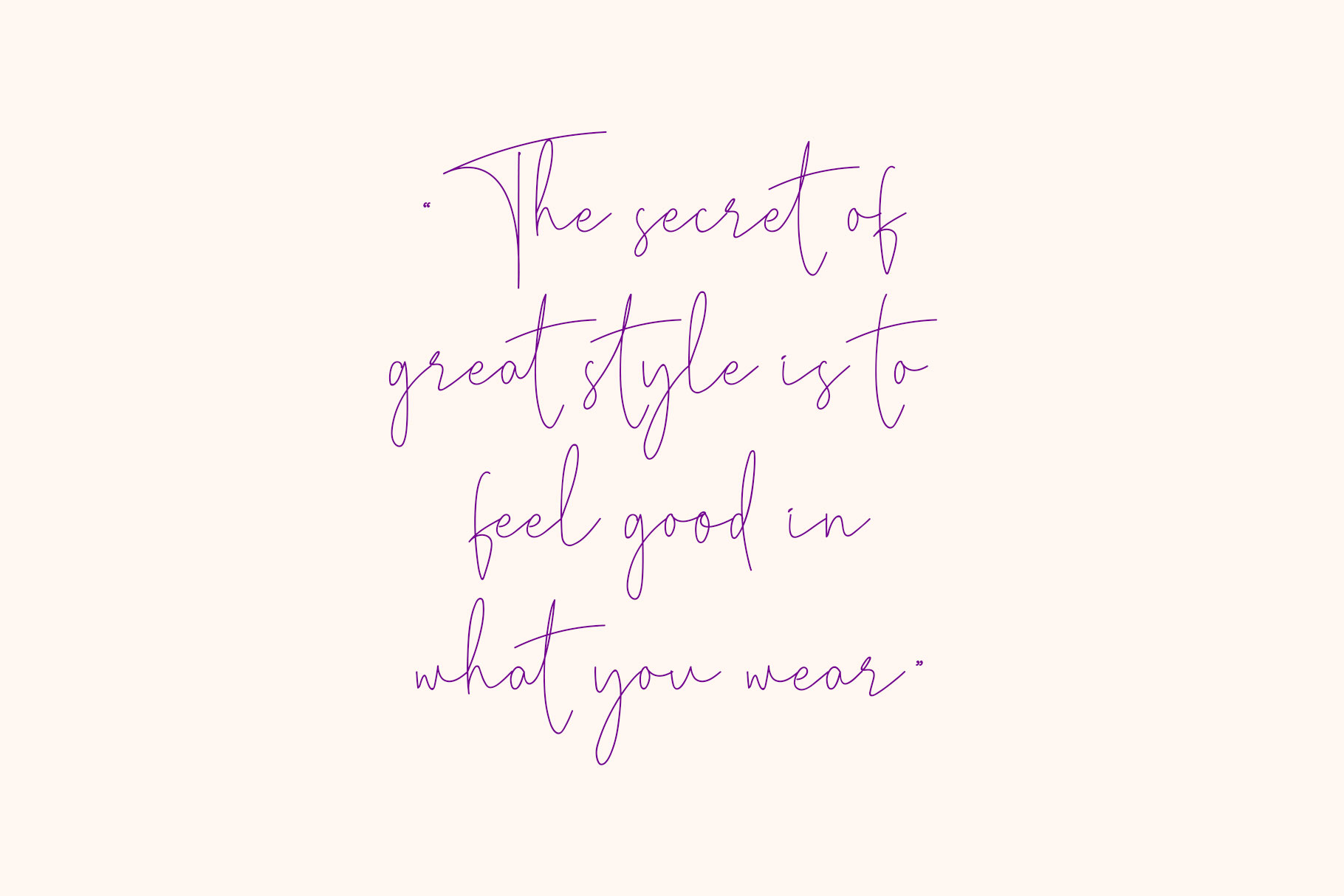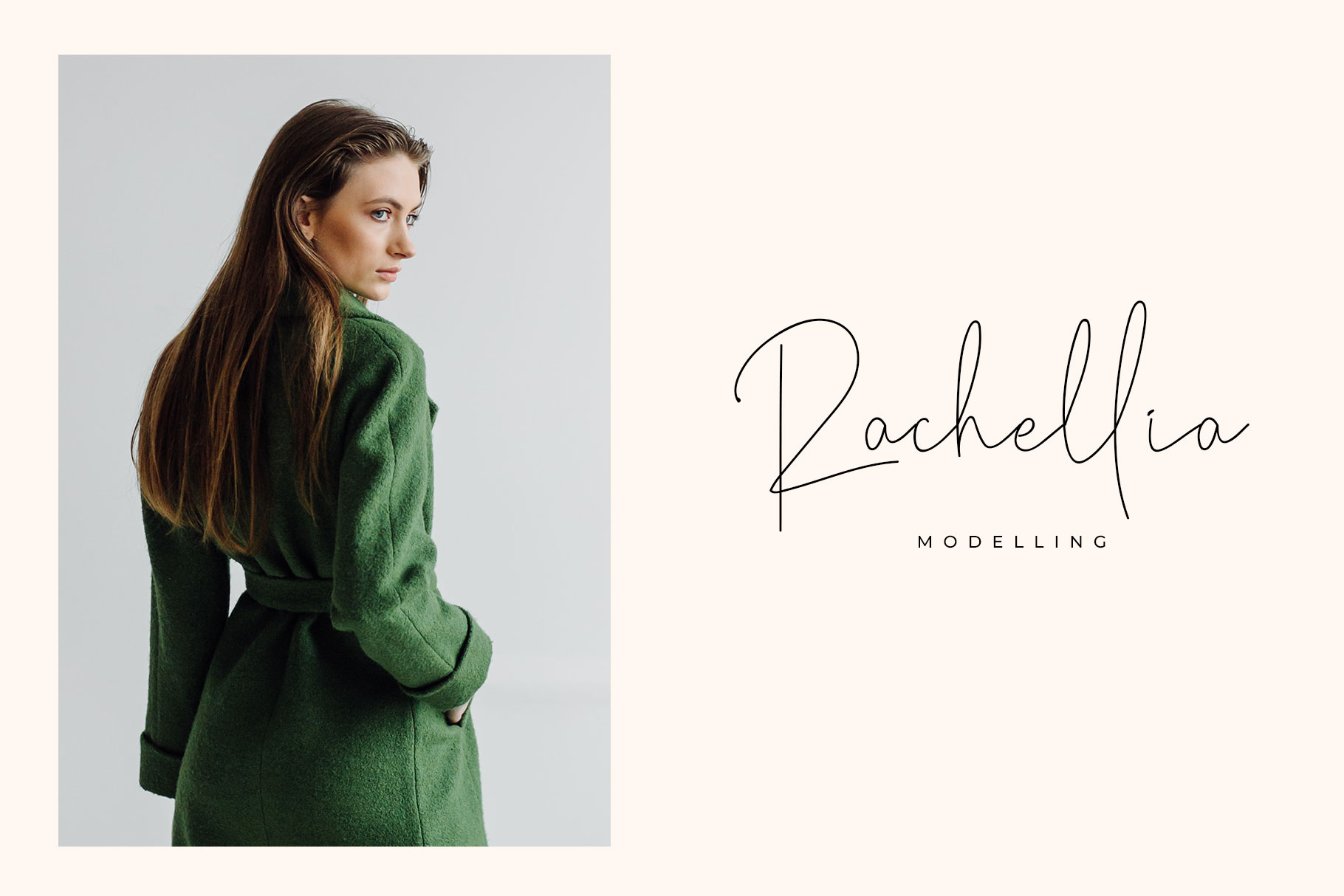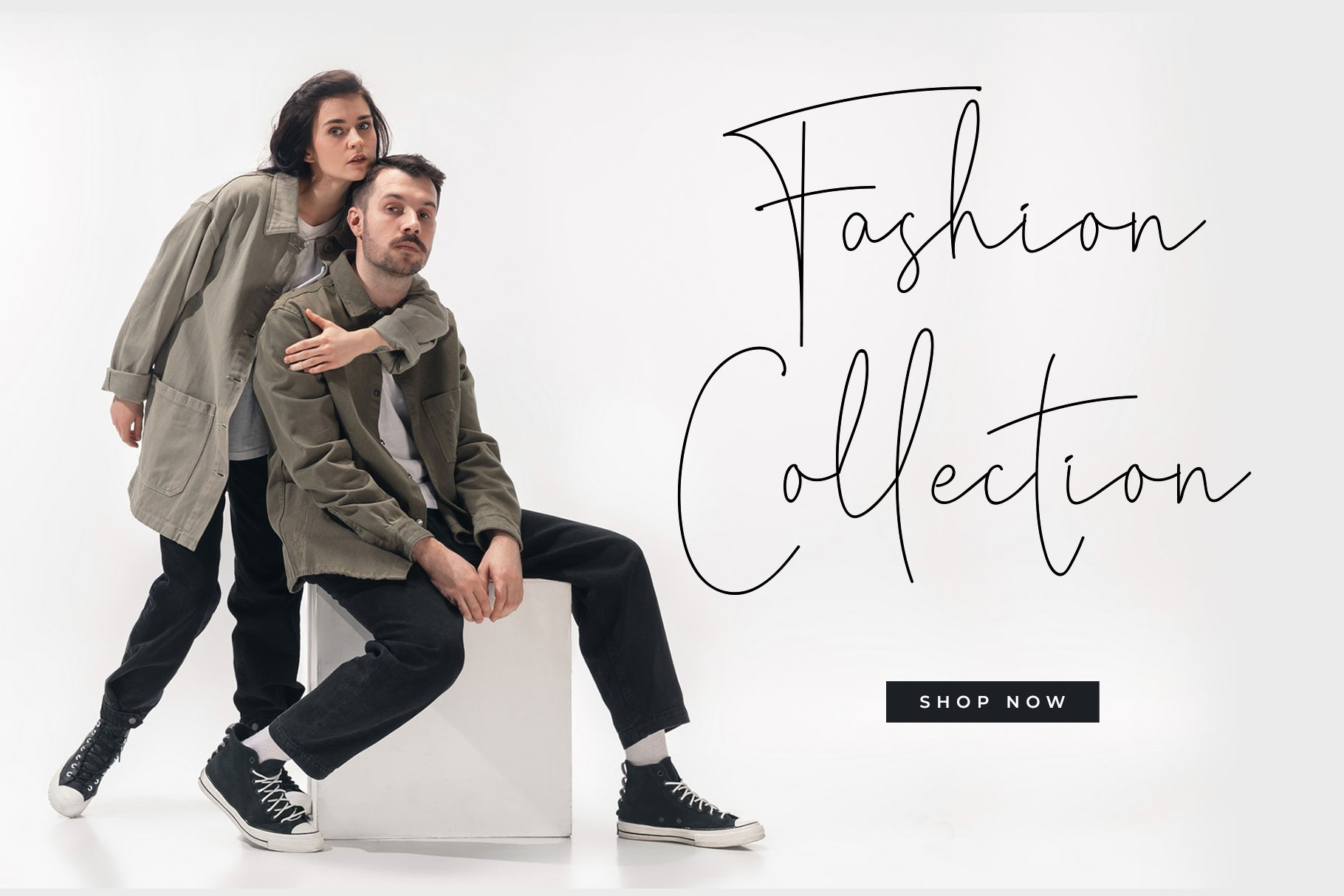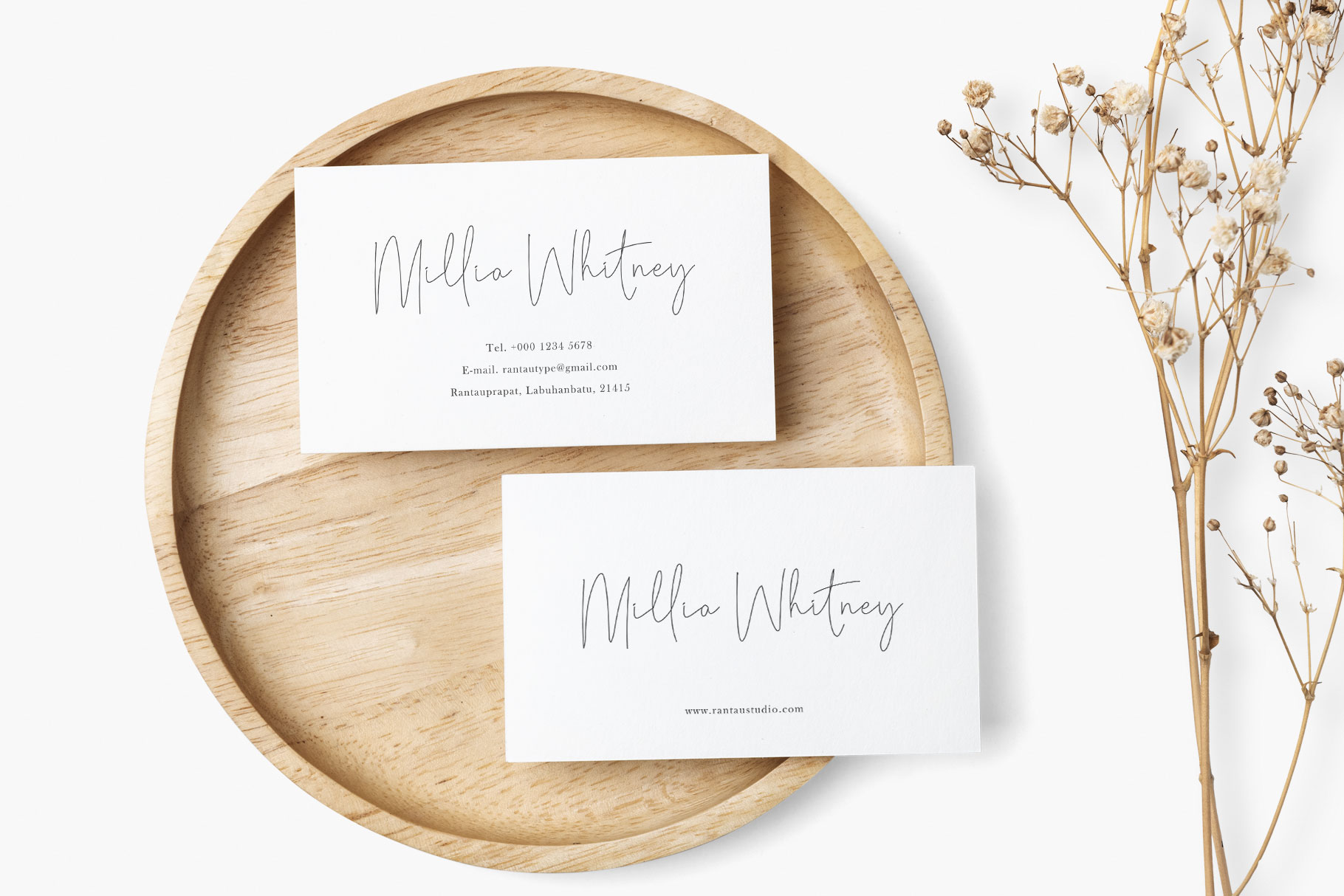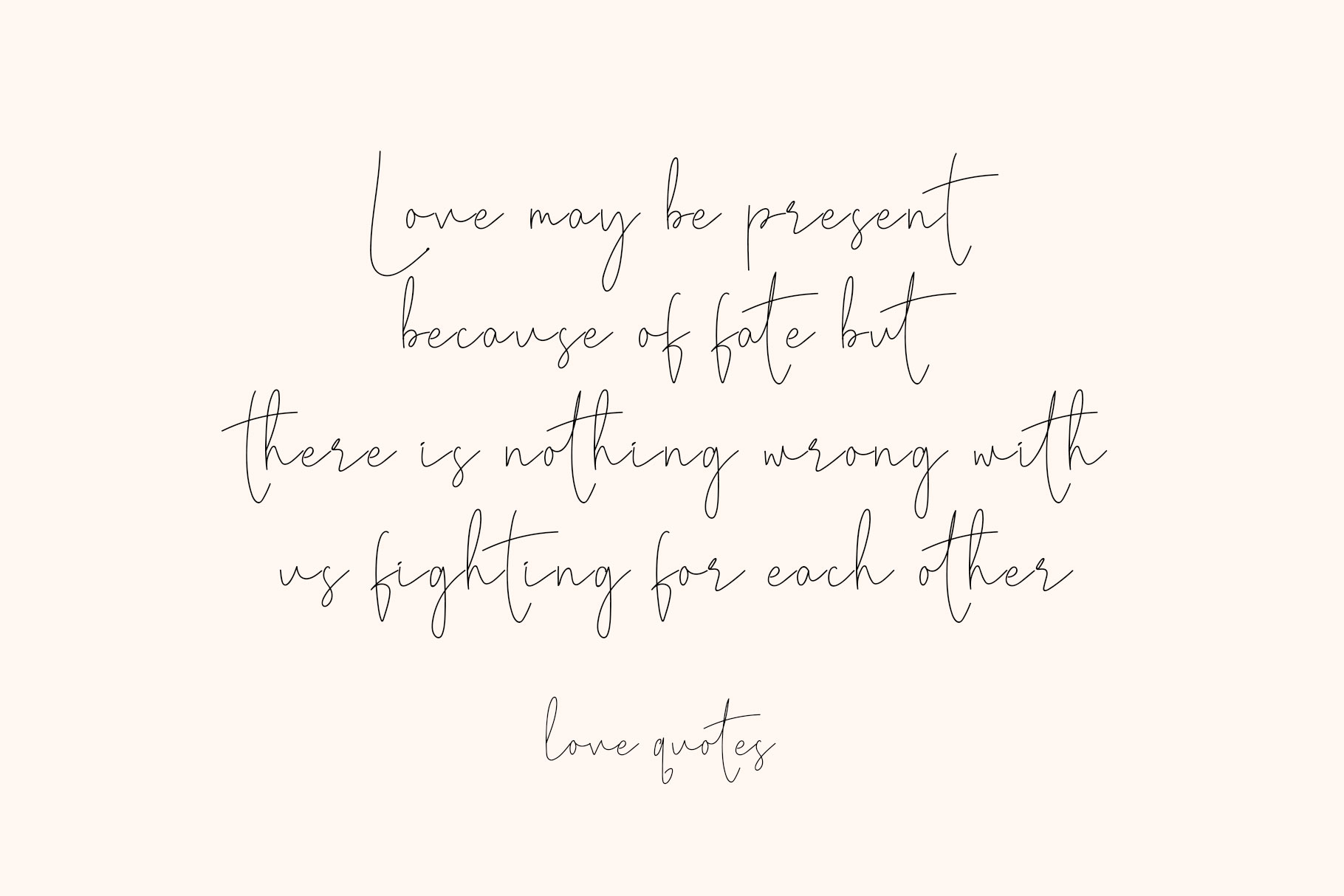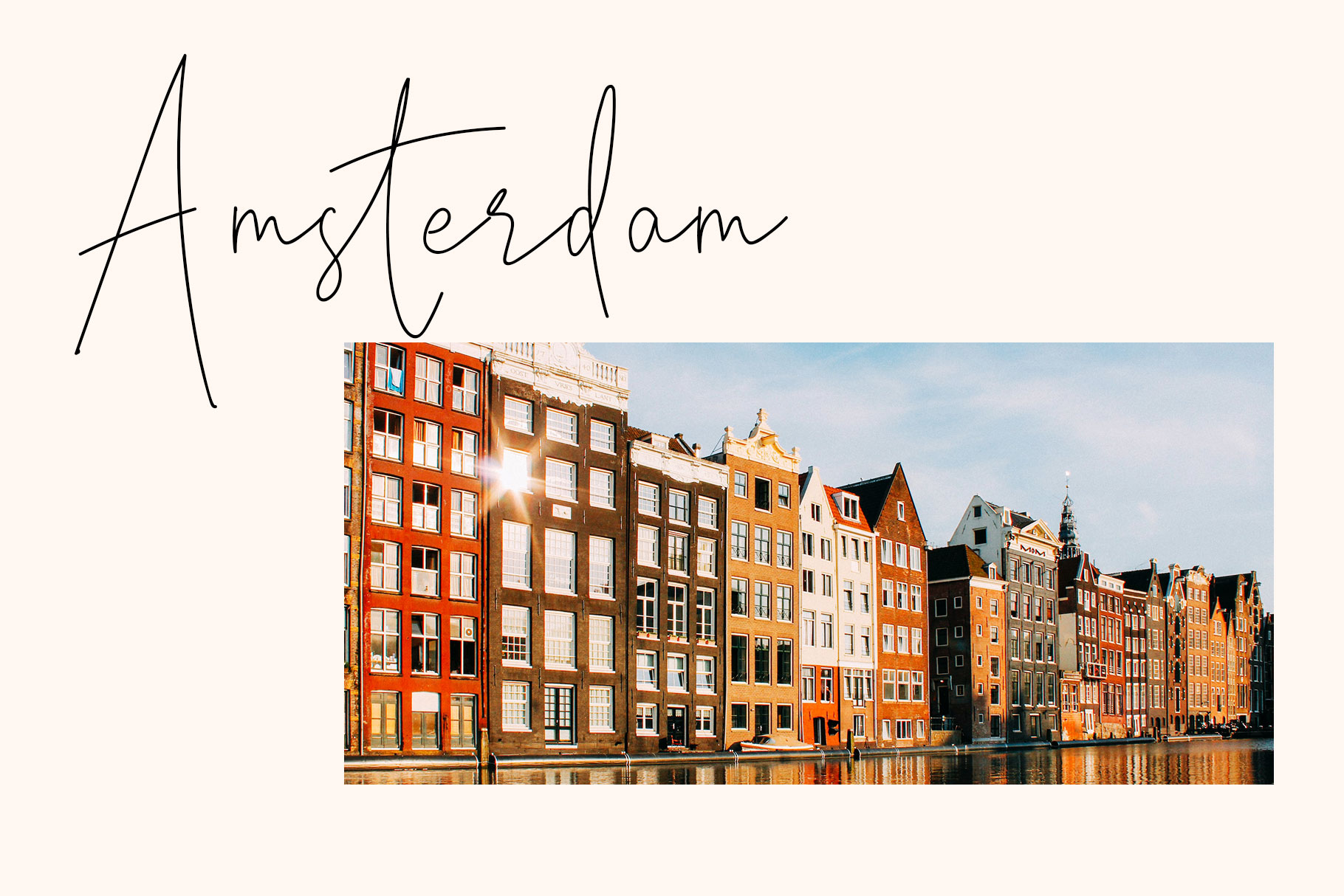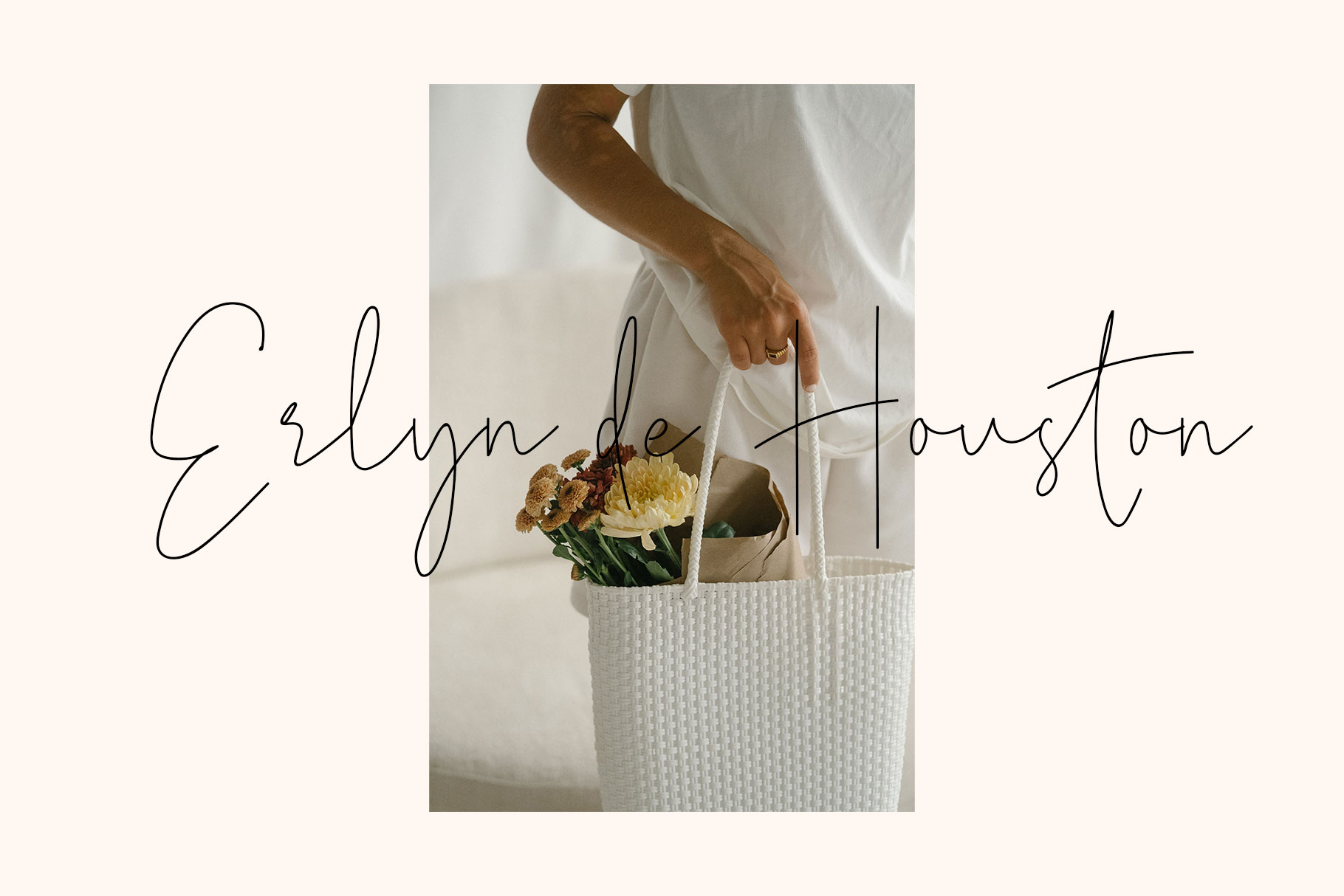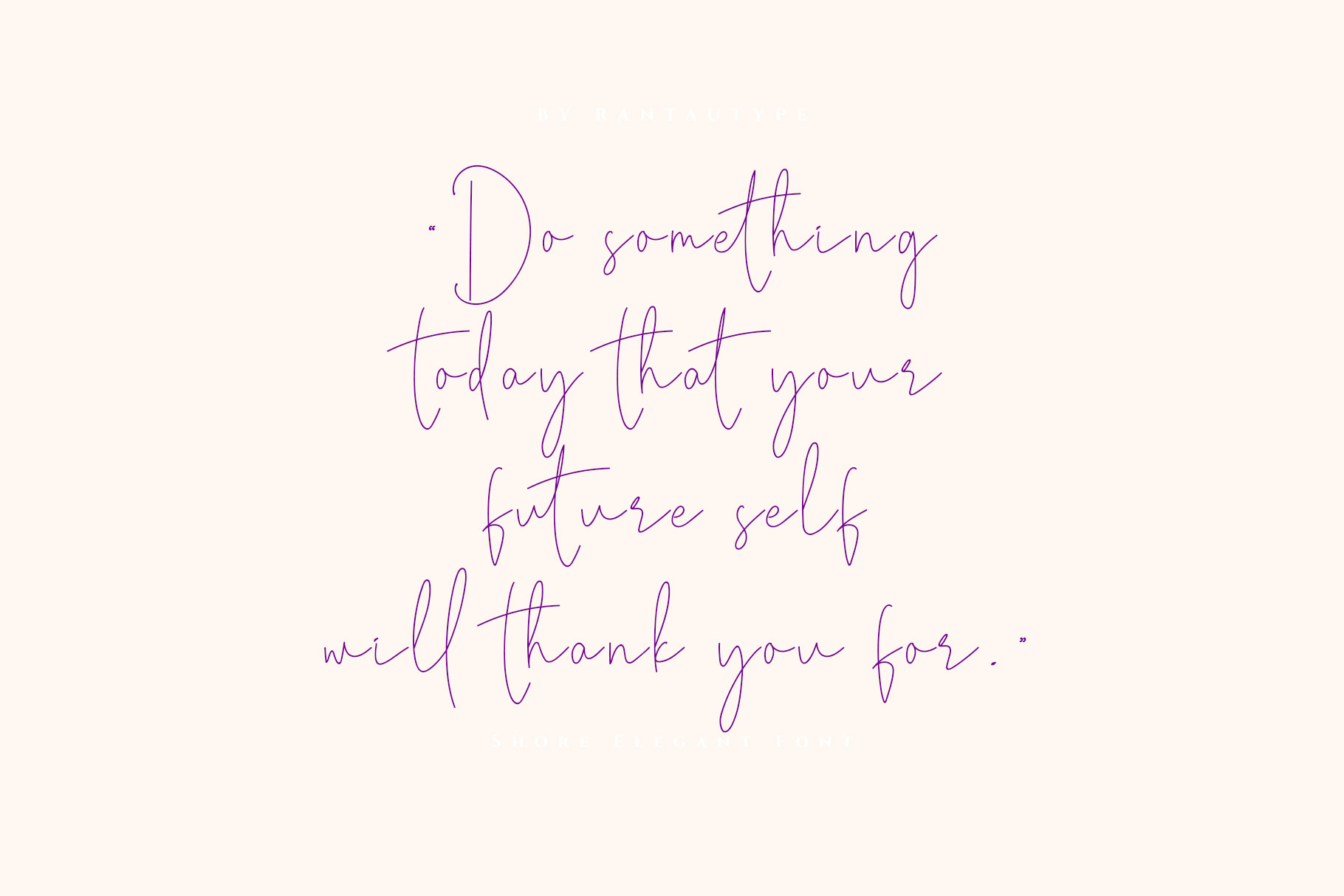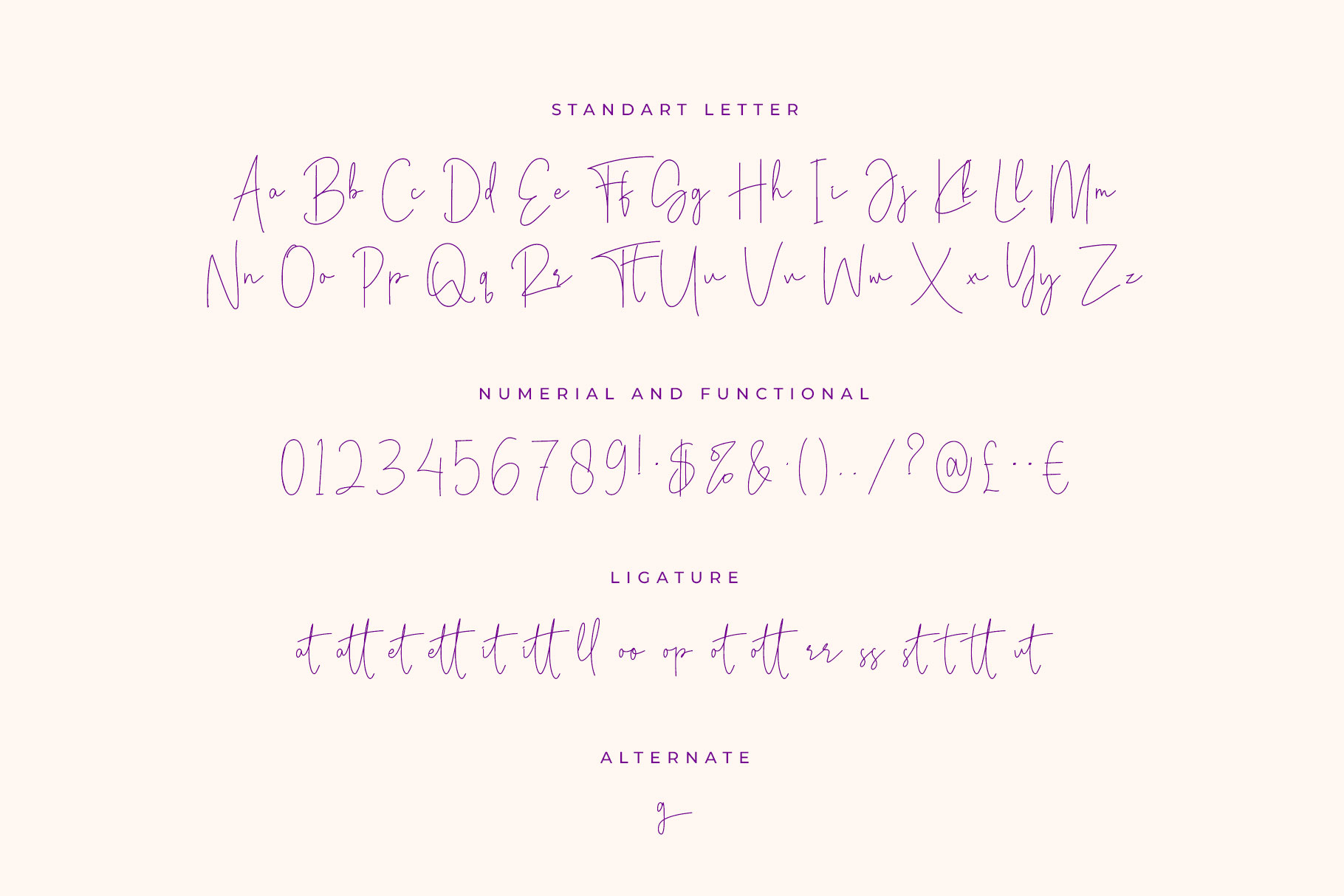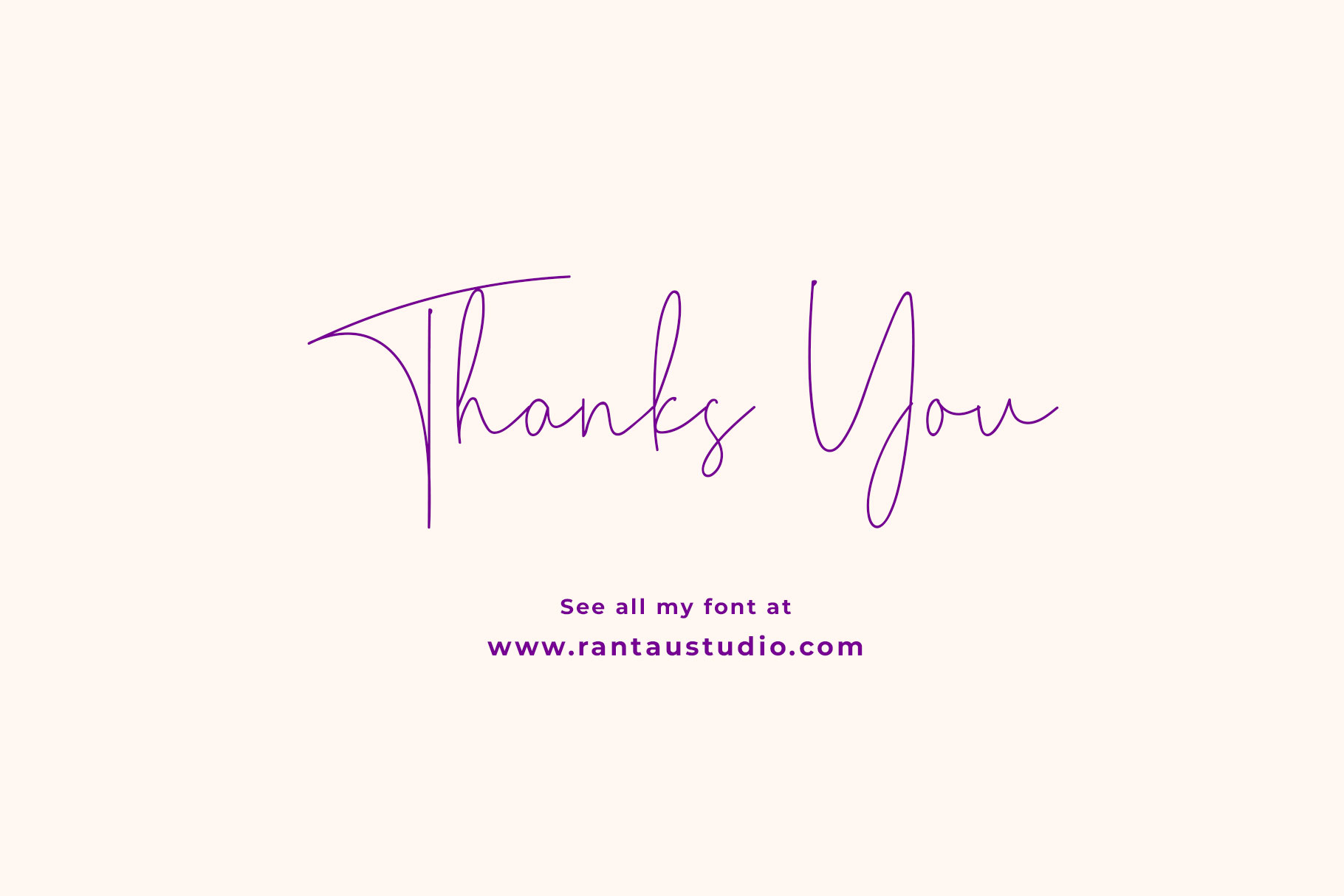
Proudly present Another signature font “Viollet Signatture”. This font which can be interpreted professional. we keep this font looks elegant, classy, readable, stylish, catchy and easy to use. Viollet Signatture is the great choice for watermark on photography, signature or signature logo design, quotes, album cover, business card and many other design project. Viollet Signatture is here to make your work to high level!!!